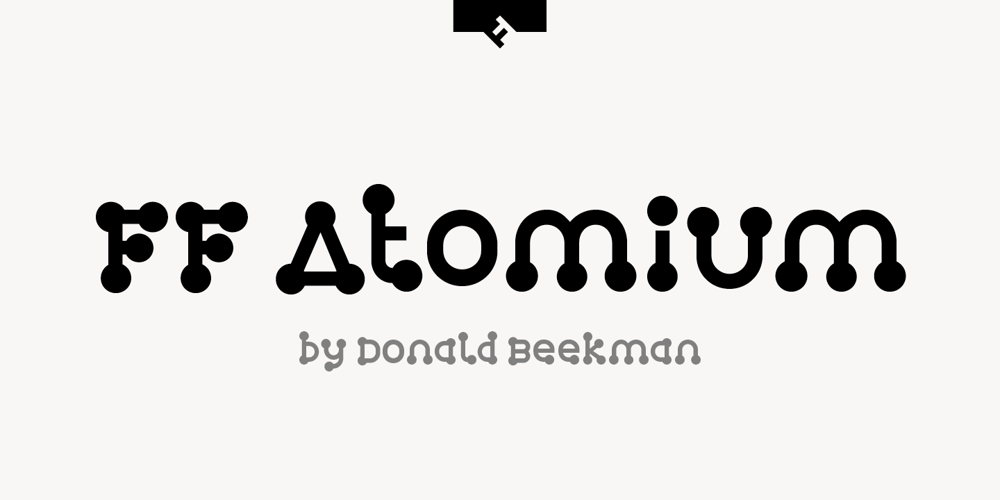
FF Atomium Font Family was designed by Donald Beekman and published by FontFont. FF Atomium contains 4 styles and family package options. Dutch type designer Donald Beekman created this display FontFont in 2007. The family contains 4 weights and is ideally suited for advertising and packaging, logo, branding and creative industries, music and nightlife as well as sports. FF Atomium provides advanced typographical support with features such as ligatures, case-sensitive forms, fractions, and super- and subscript characters. It comes with proportional lining figures.